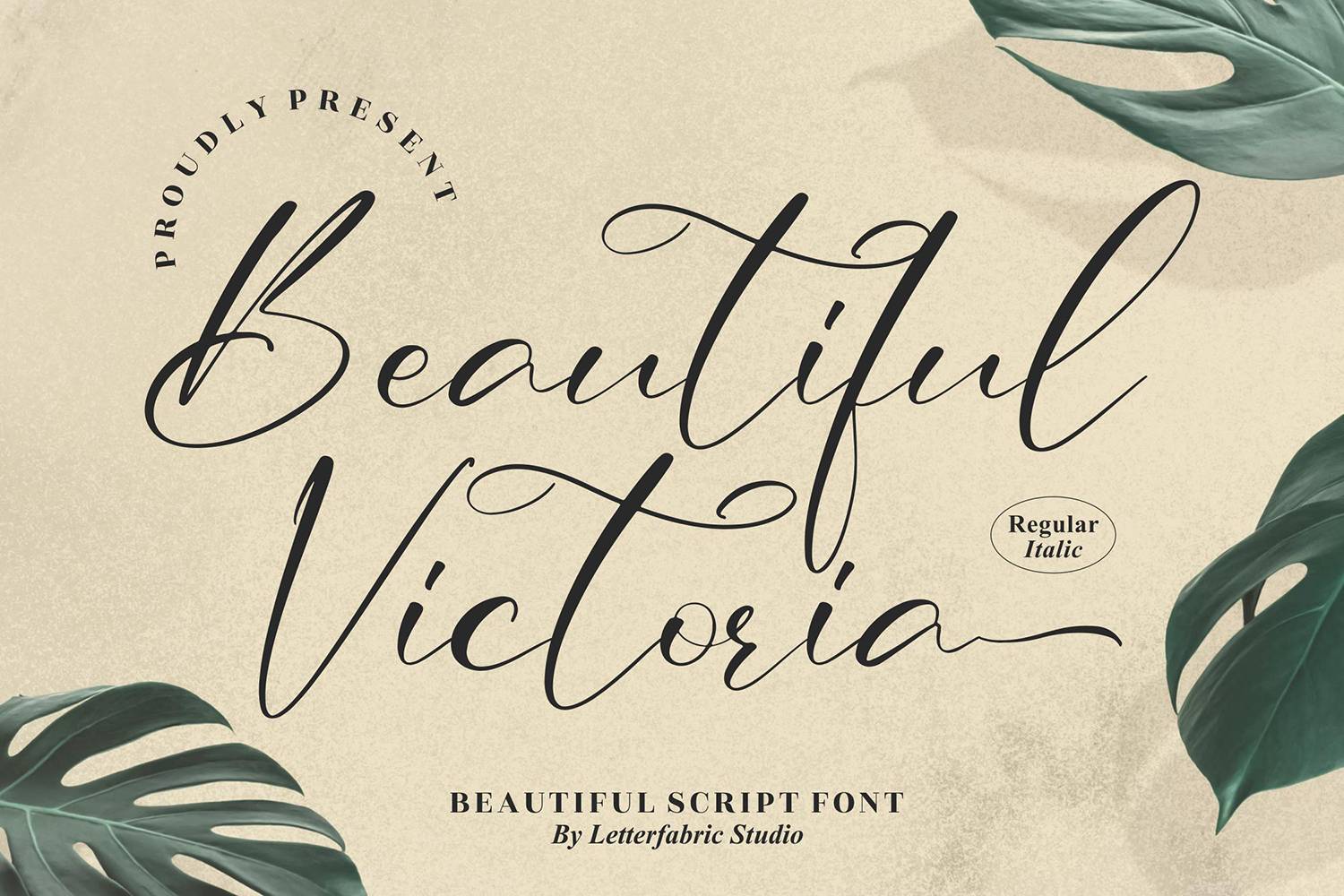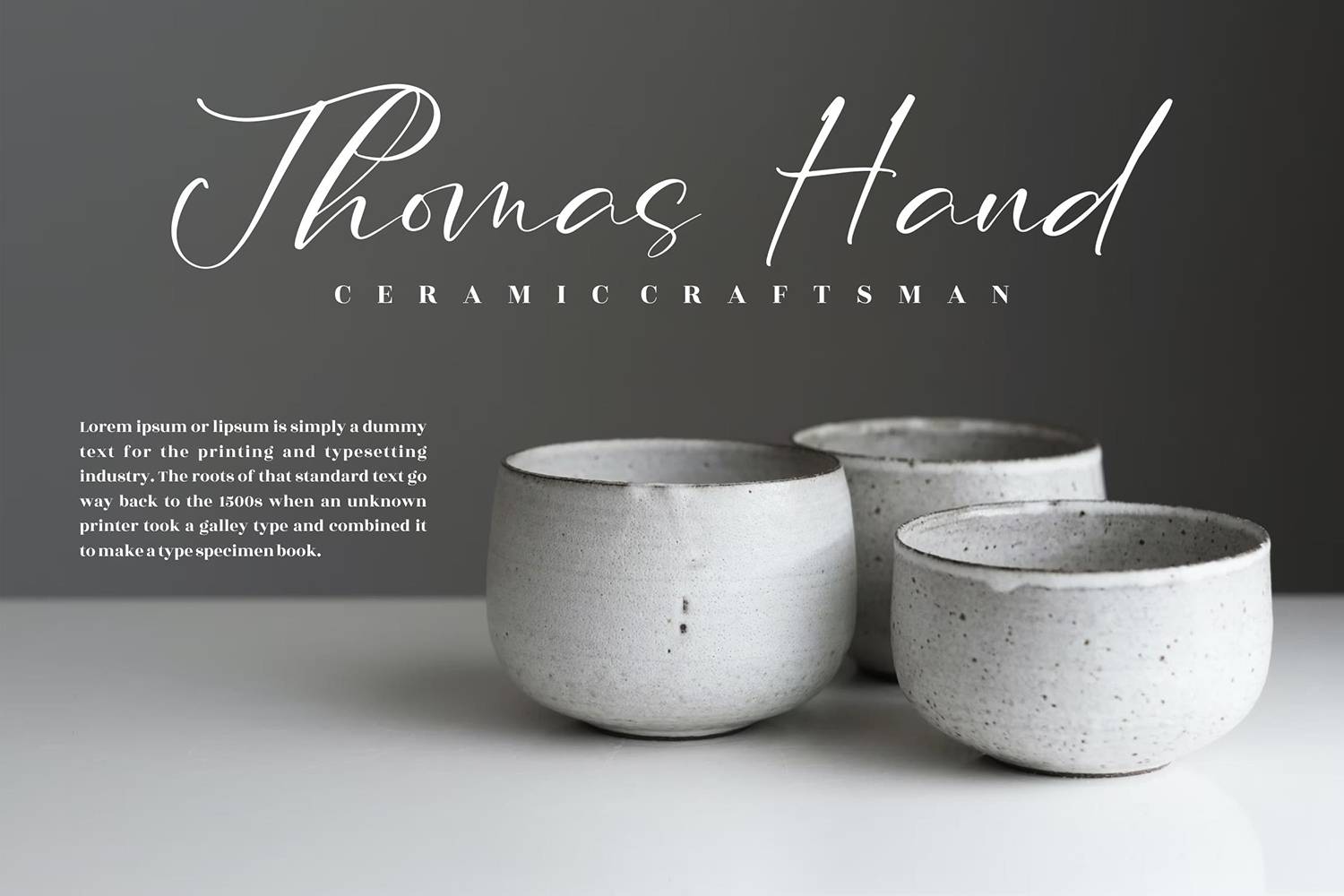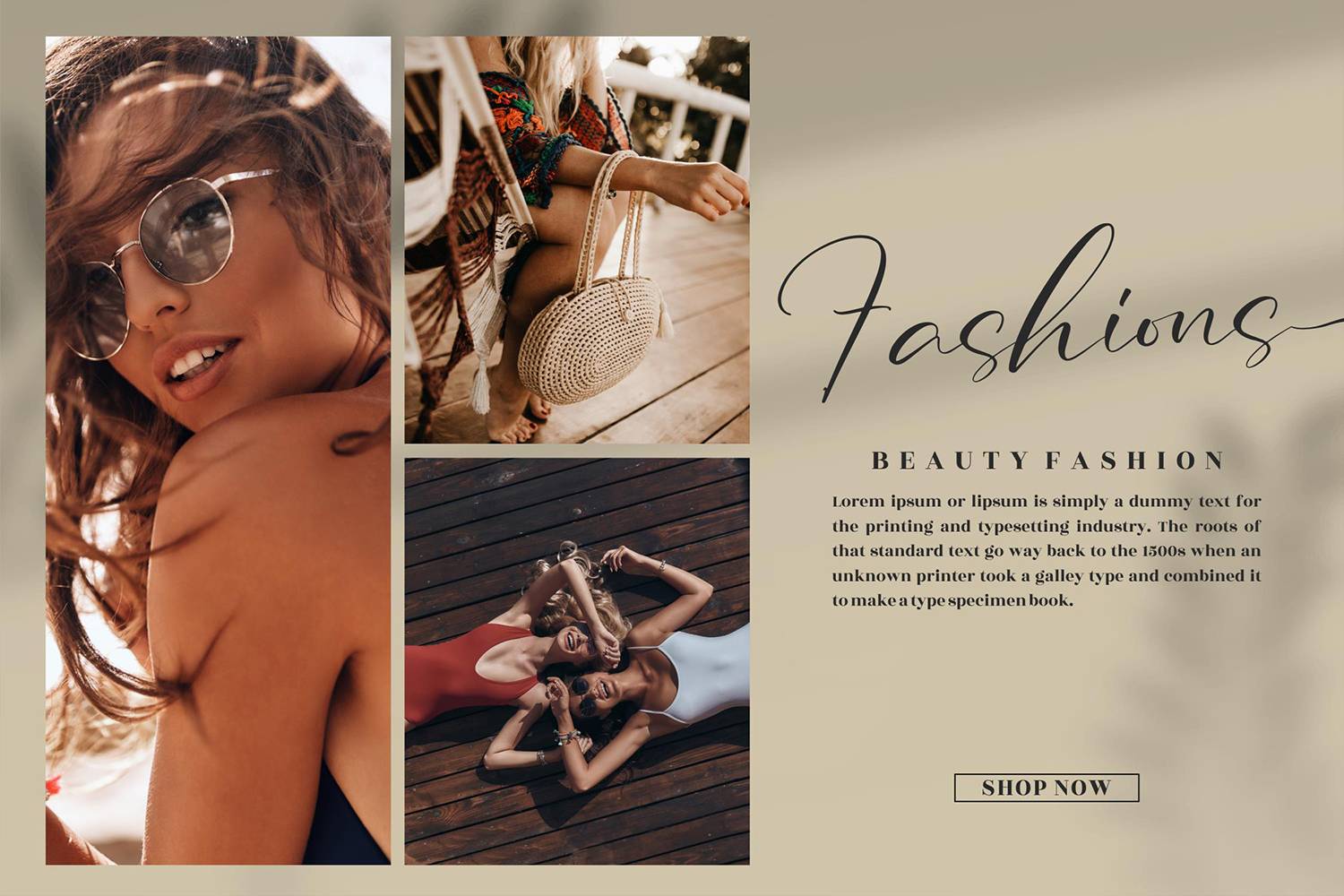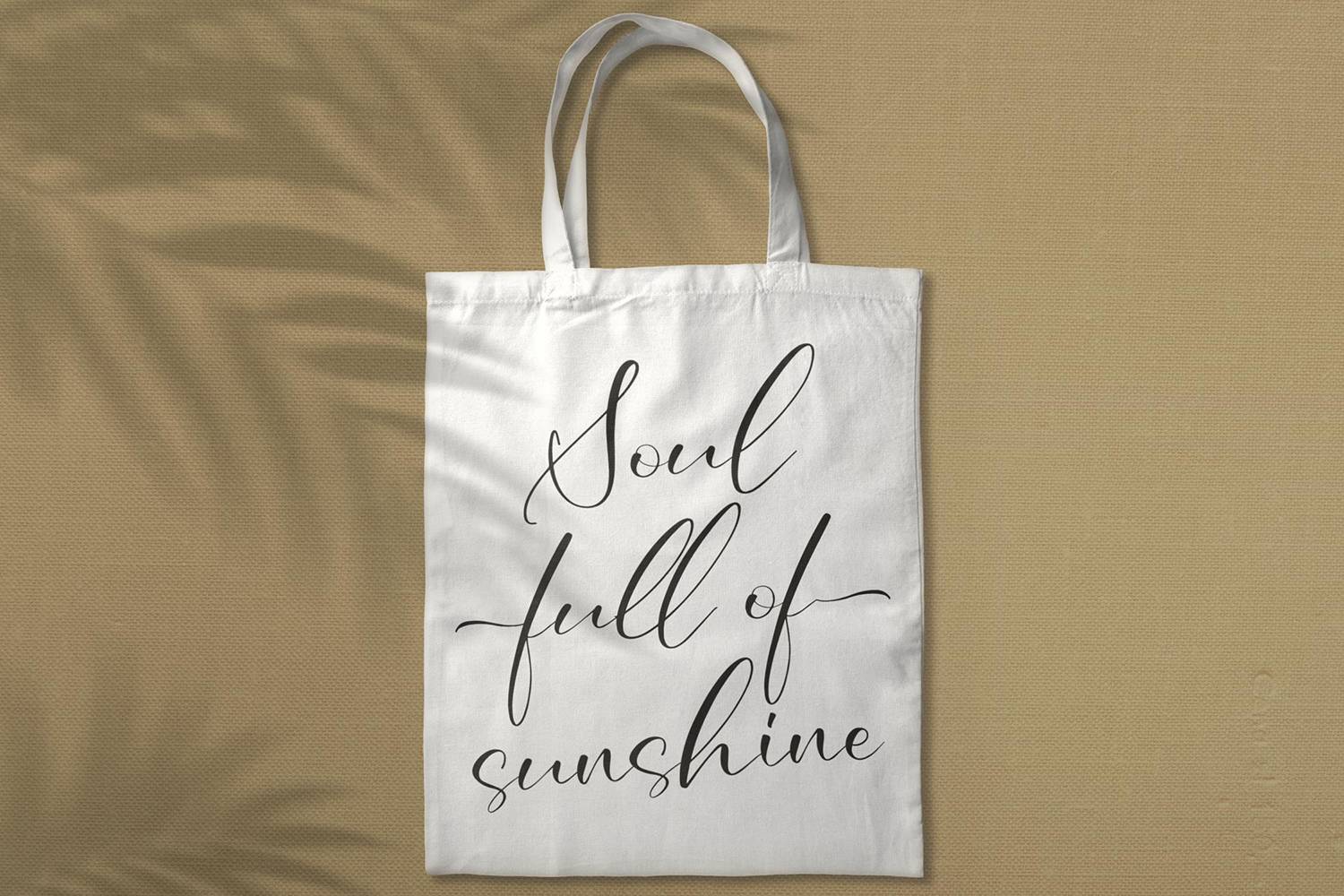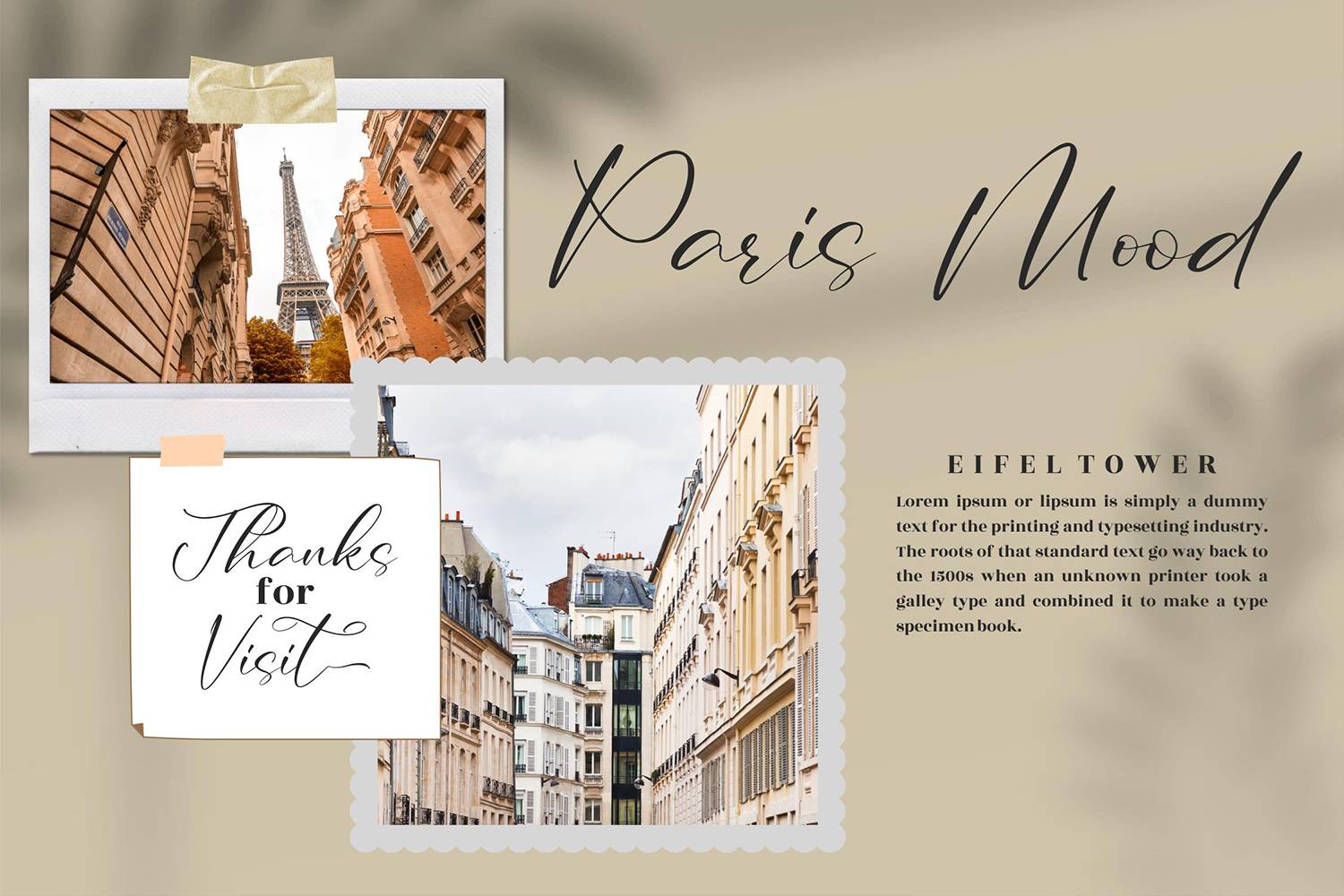
Beautiful Victoria is an elegant, delicate script font featuring flowing, thin strokes and graceful swashes that create a refined, handwritten look. Its light weight and high contrast add a sense of sophistication and charm, making it perfect for luxury branding, wedding invitations, and stylish editorial use where a personal, classy touch is desired.
Beautiful Victoria Font
About Beautiful Victoria Font